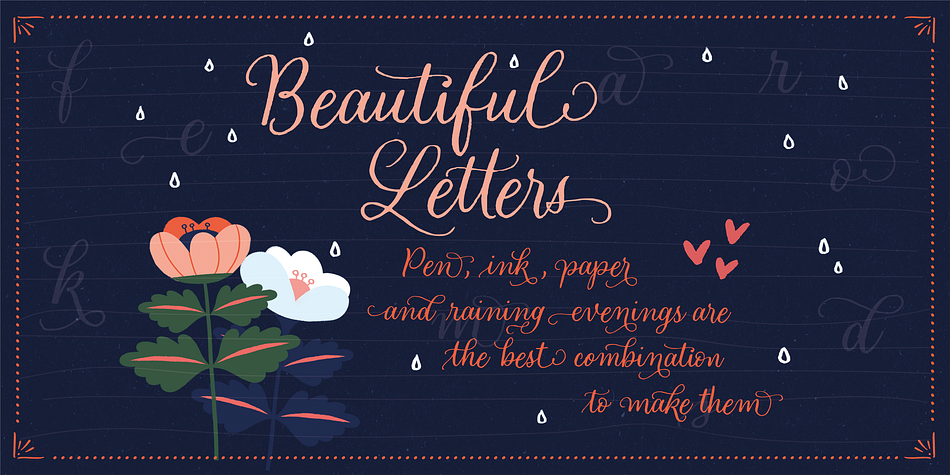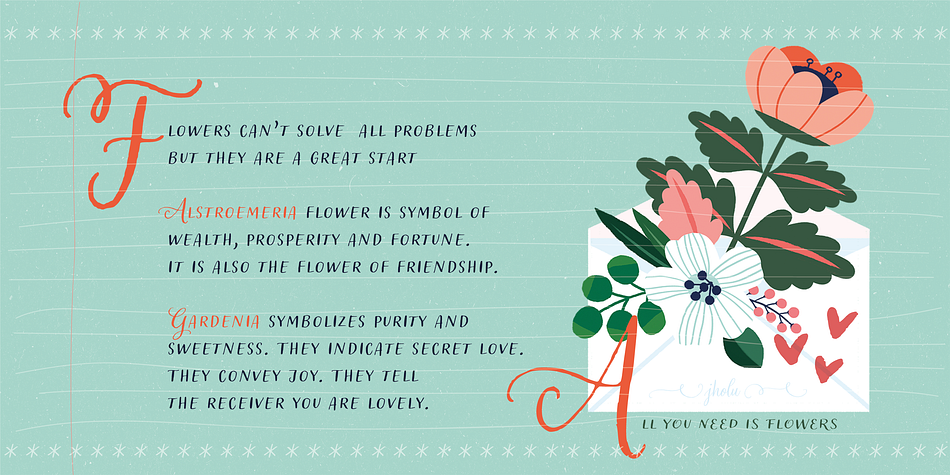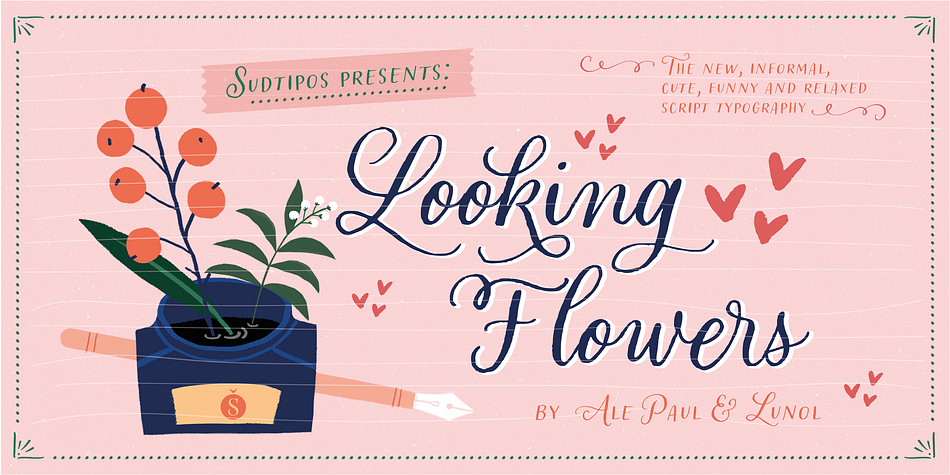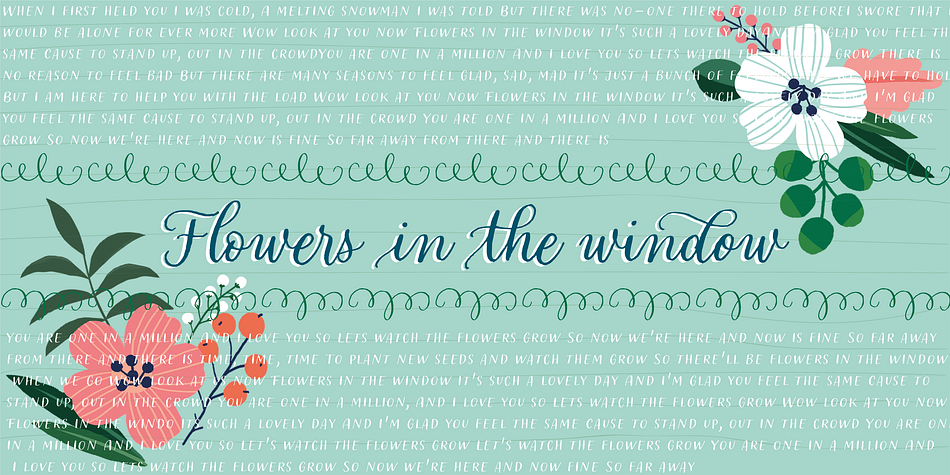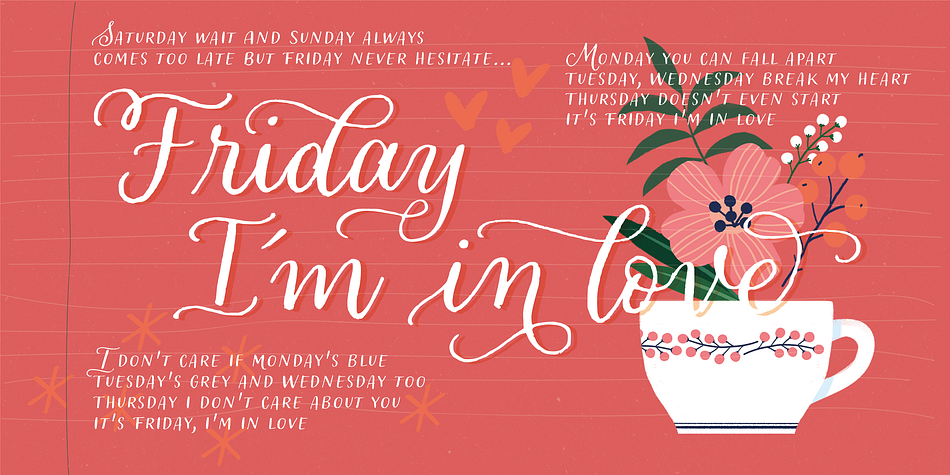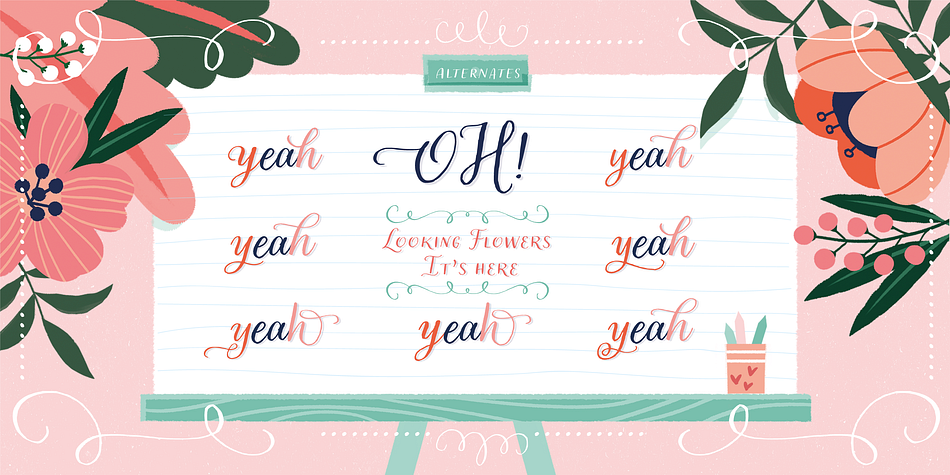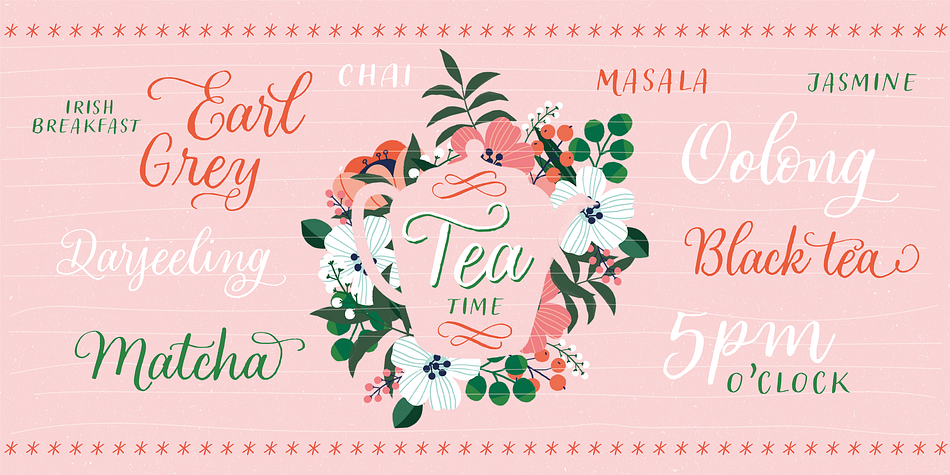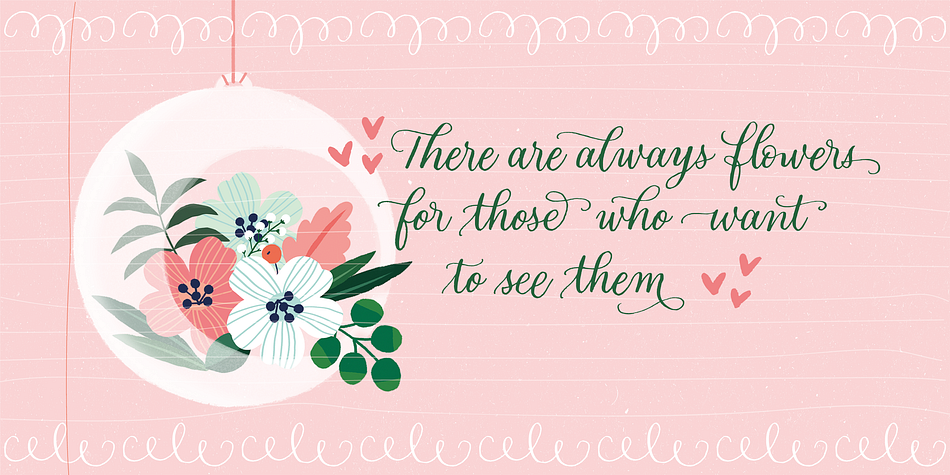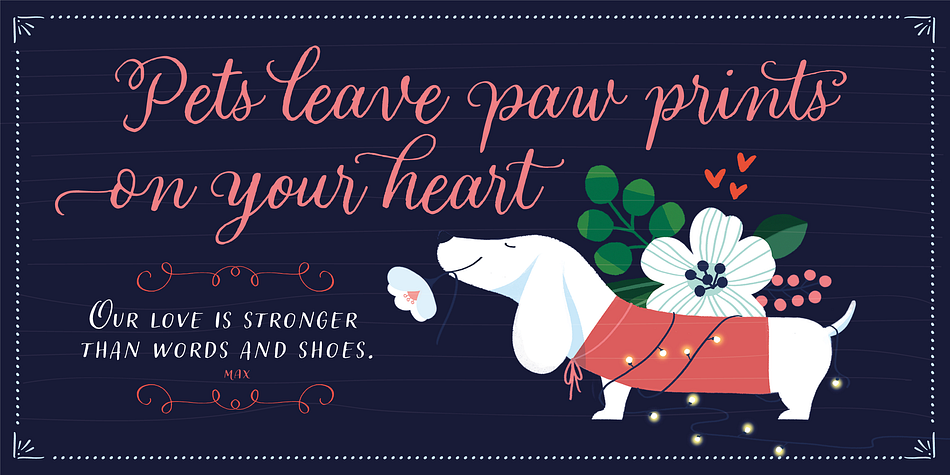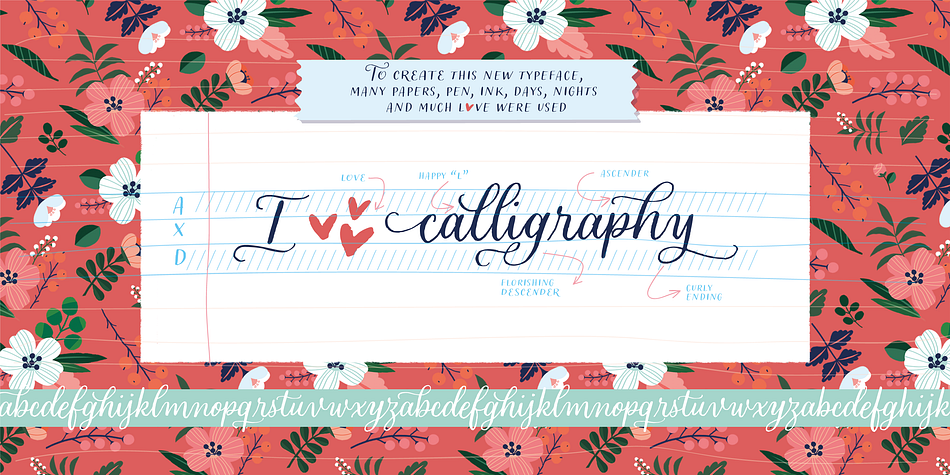
Designed by Alejandro Paul and Lucia Nolasco, Looking Flowers is a dingbat, script and hand display font family. This typeface has four styles and was published by Sudtipos.
Lu Nolasco, also known as Lunol, is a fresh representative of a new generation of Souther American lettering artists. She was born in Lima, Peru. After learning from some of the region’s best teachers and exploring the pointed nib on her own, she became a prolific lettering workshop instructor herself.
Miraflores is one of Lima’s main tourist attractions. An upscale district with a great window on the Pacific ocean, it is the place where Lu looks for inspiration. It particularly inspired this “Looking flowers” (Miranda las flores), Lunol’s first typeface, designed in collaboration with Ale Paul. It is a comprehensive informal script that comes with many alternates, swashes and ligatures, along with small cap and quite a few ornaments. The fonts cover an expansive range of Latin languages, and are intended for use in stationery, menus, packaging, and general design where the main objective is to relay a sense of fun, playfulness and sensibility.